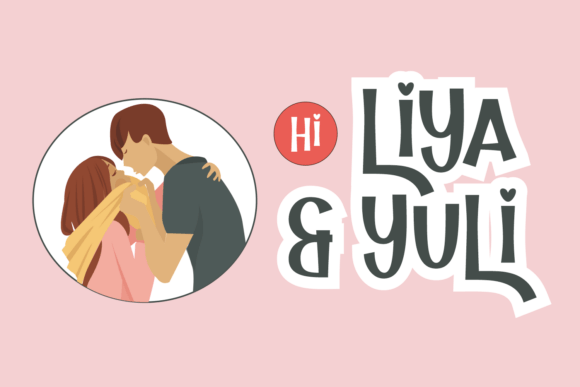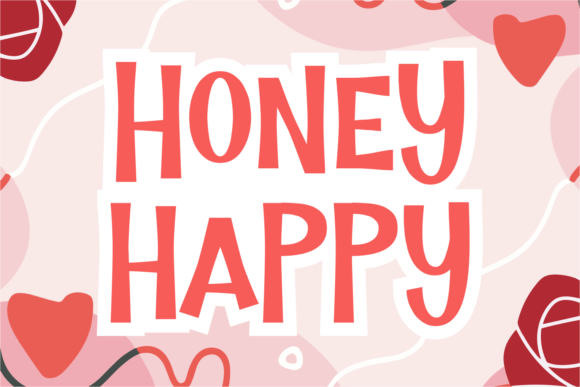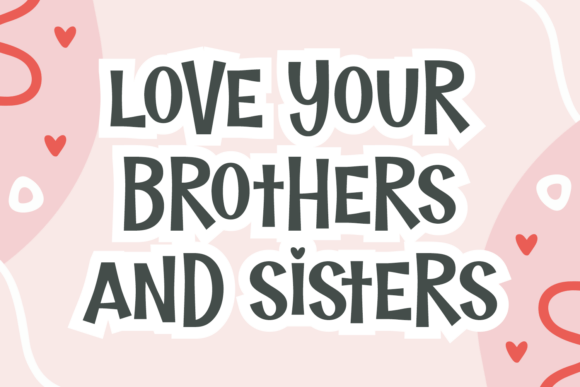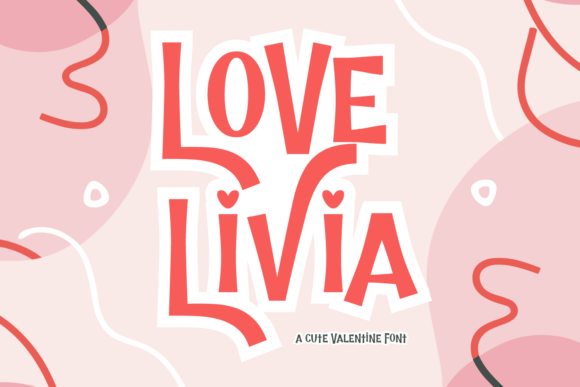
Introduction to Love Livia Font
Unveiling the enticing world of charming typography, the Display Font swoops in with a blush of romantic pink and pastel color palette.
Laced with delightful floral elements and anchored in heart motifs, it gleefully embraces a feminine persona Stamped with the warmth of a handwritten style, the font dances in a playful rhythm, mirroring heartwarming handwritten scripts.